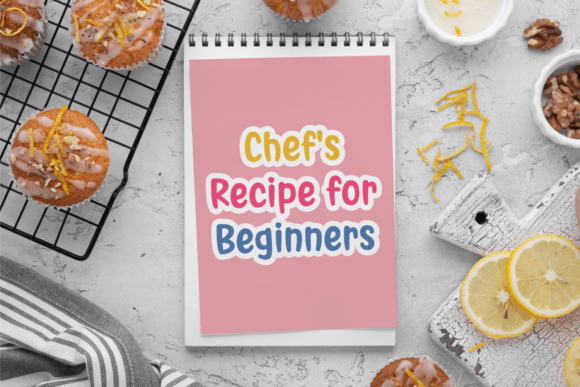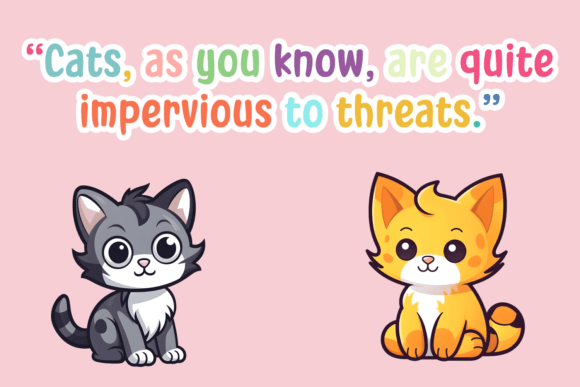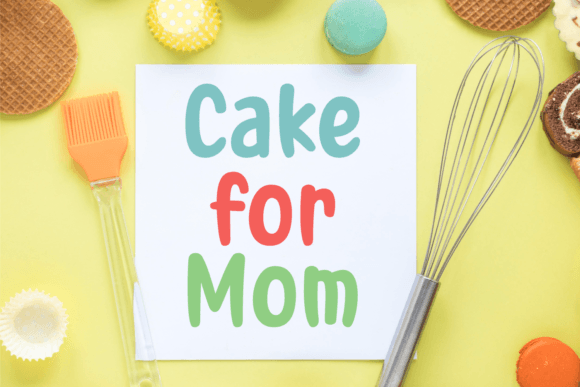
Introduction to Cook Book Font
Cook Book is a sweet and friendly display font.
Why Choose Cook Book Font?
Cook Book Font offers exceptional quality and versatility, making it a valuable addition to your design toolkit. Whether you’re creating for personal projects or commercial use, Cook Book Font delivers professional results.